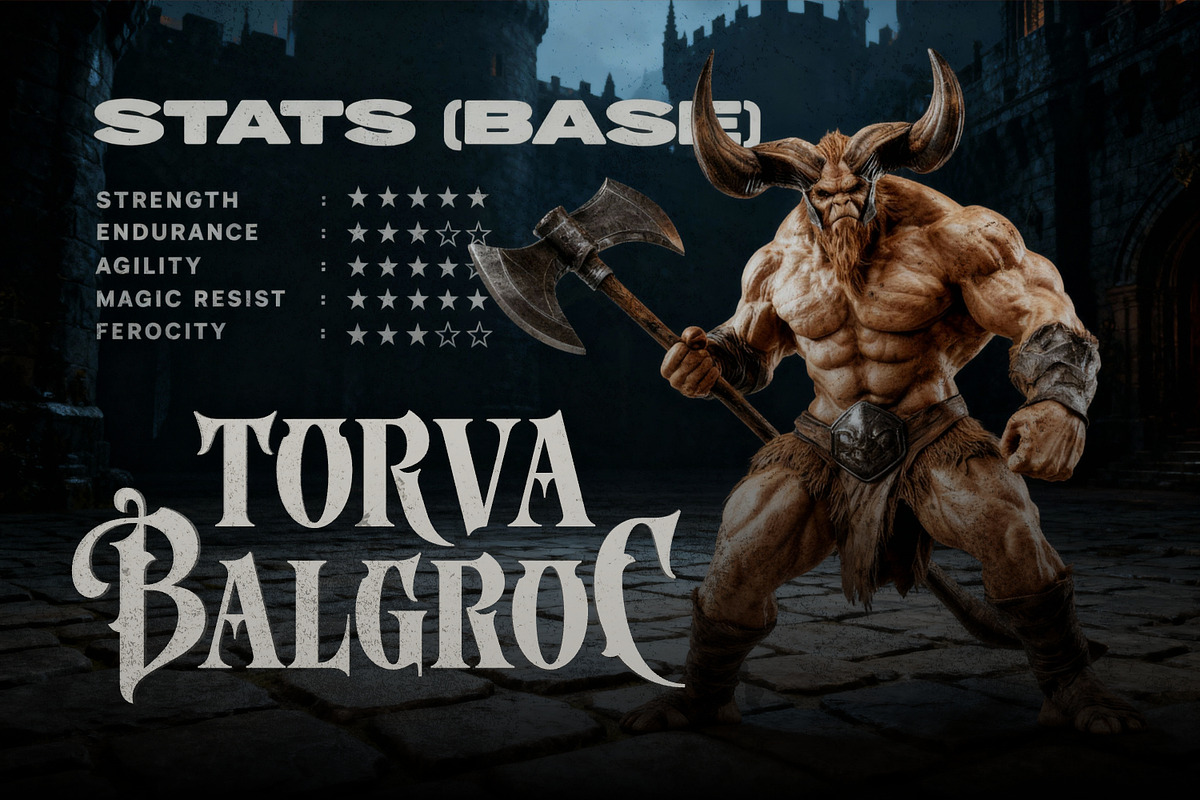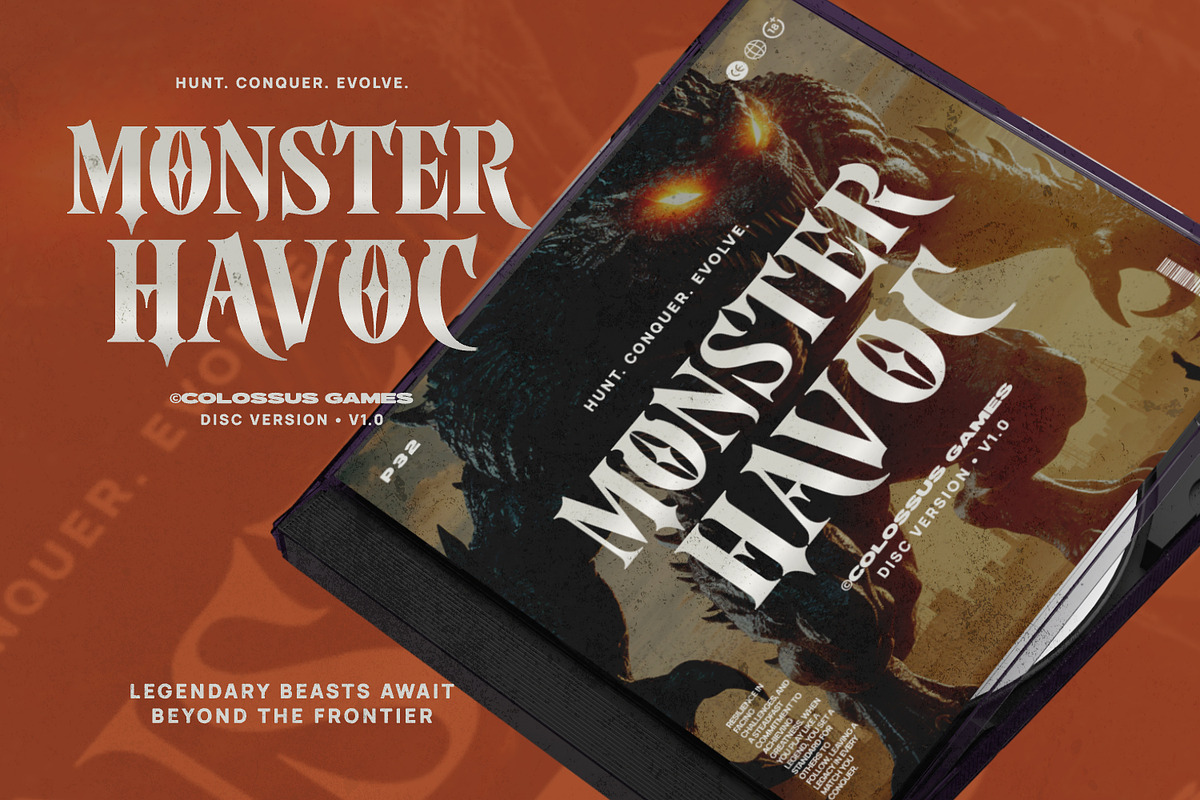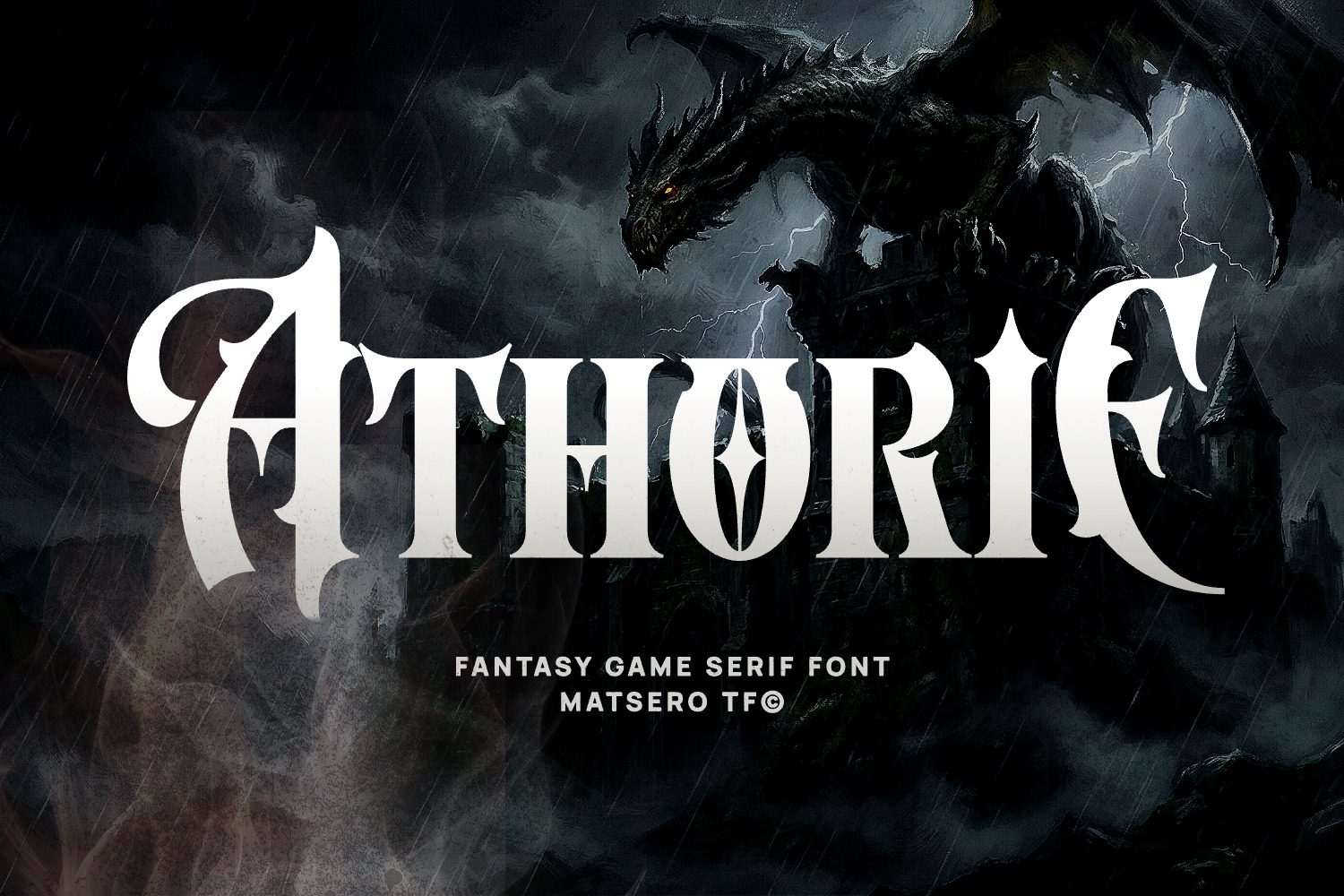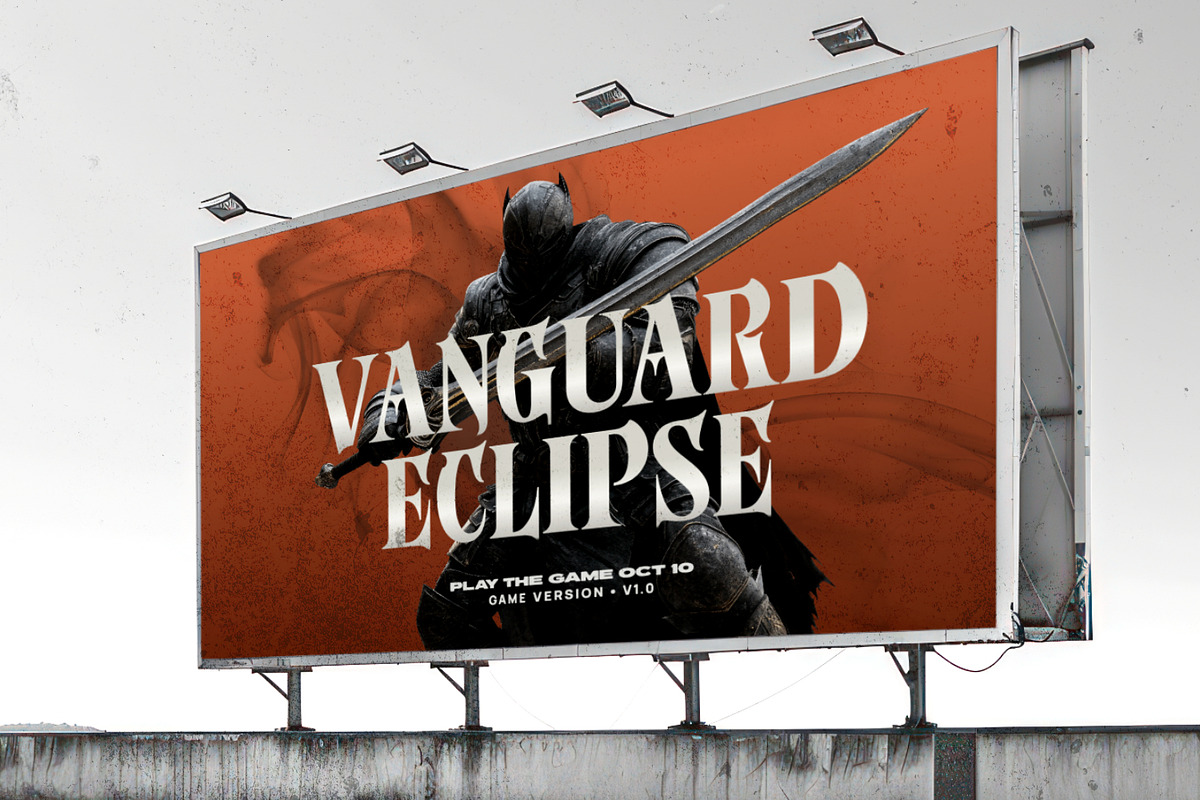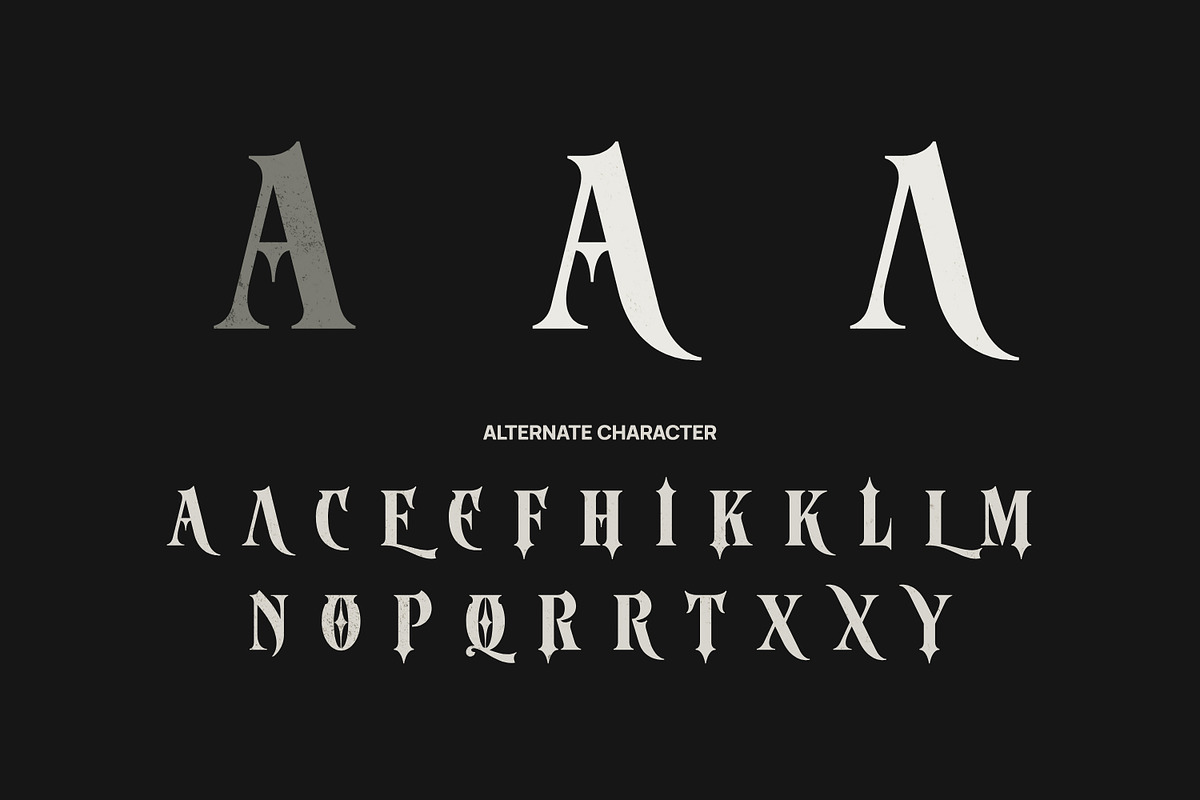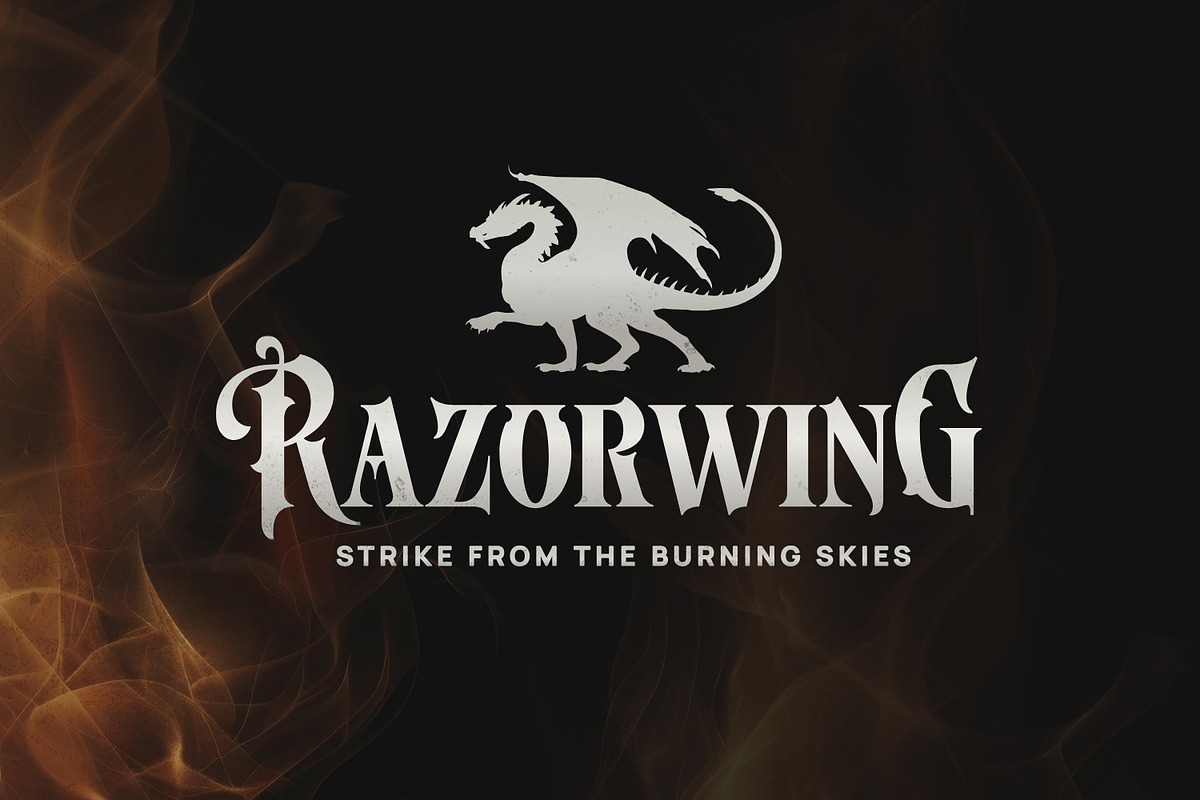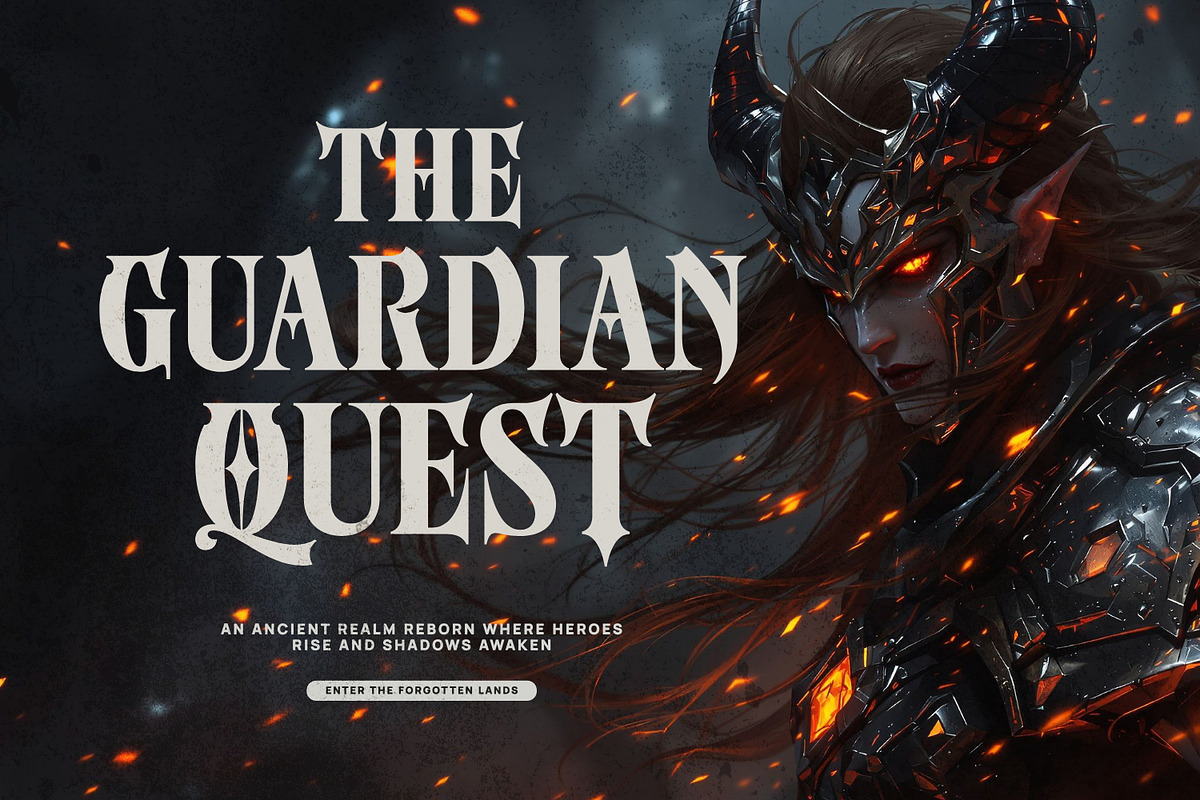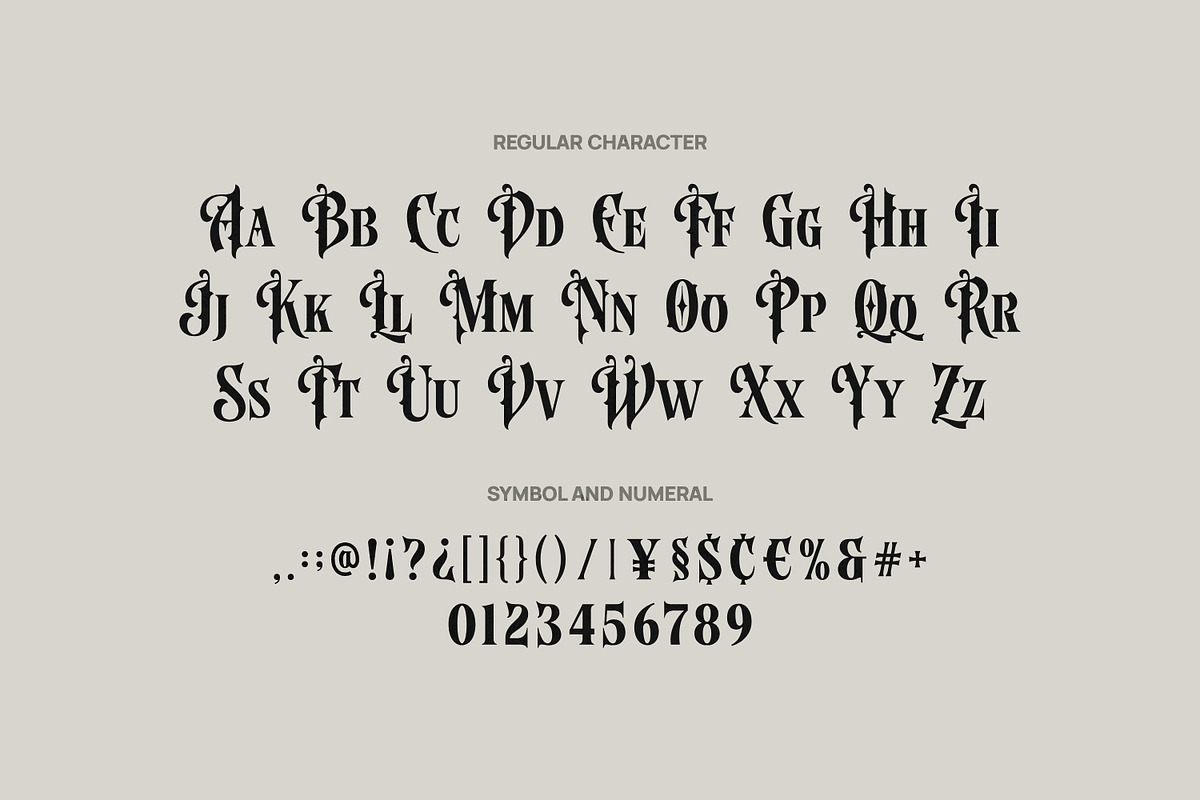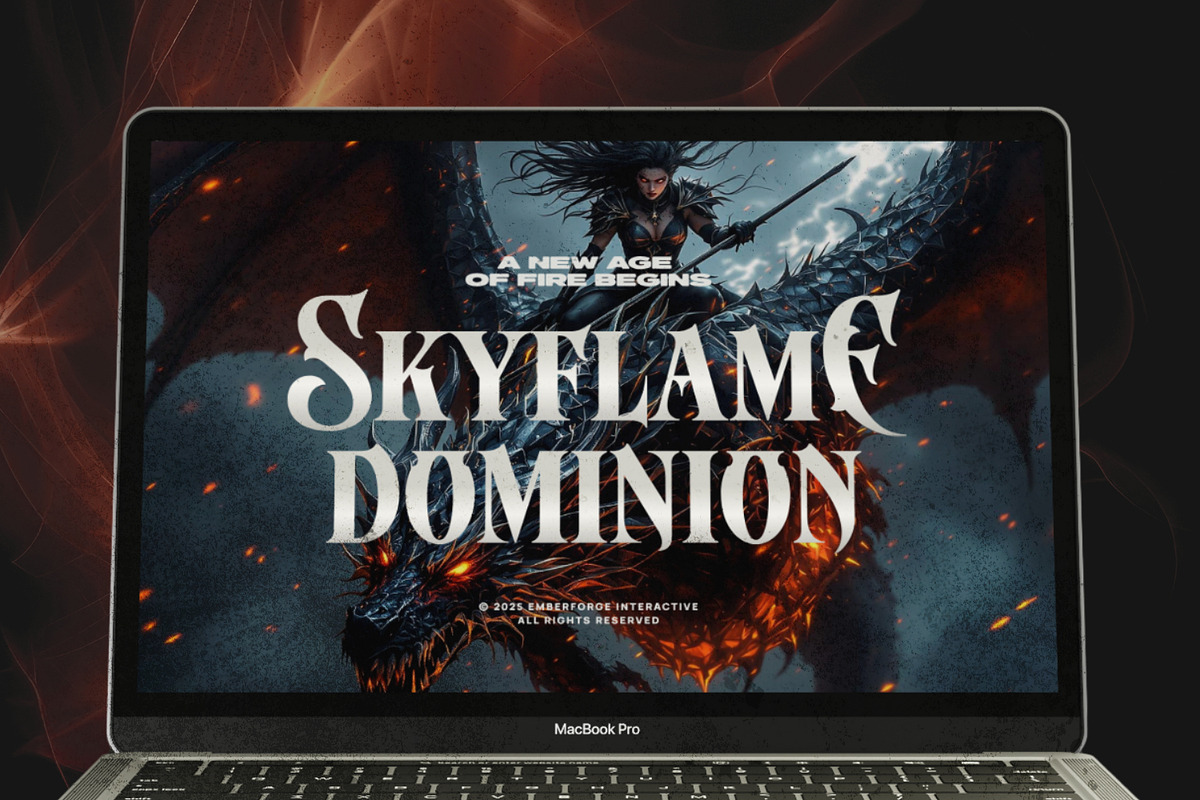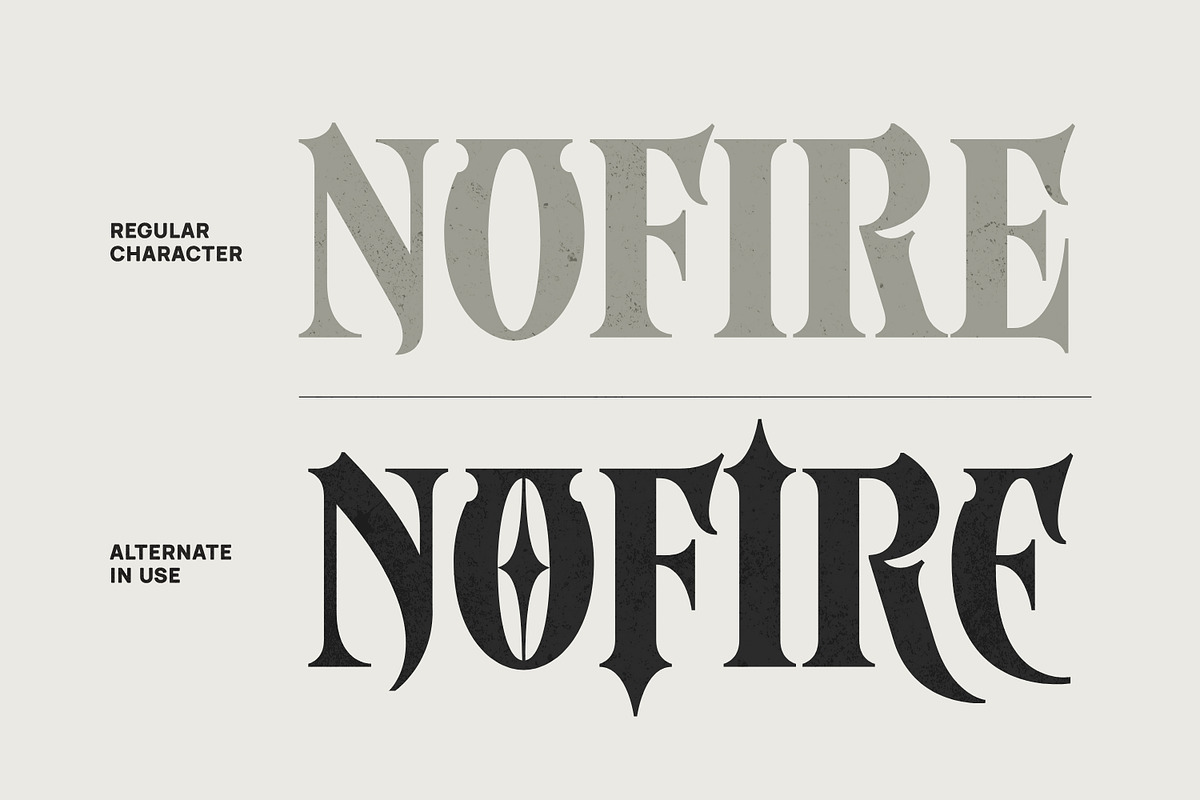
Athorie Fantasy Font
Athorie is a bold fantasy game serif font built for cinematic titles, heroic branding, and dark-fantasy design projects. With sharp medieval curves and dramatic gothic ornaments, this typeface brings an epic and powerful atmosphere to every layout. Perfect for RPG game titles, adventure posters, esport logos, book covers, and high-impact headlines.